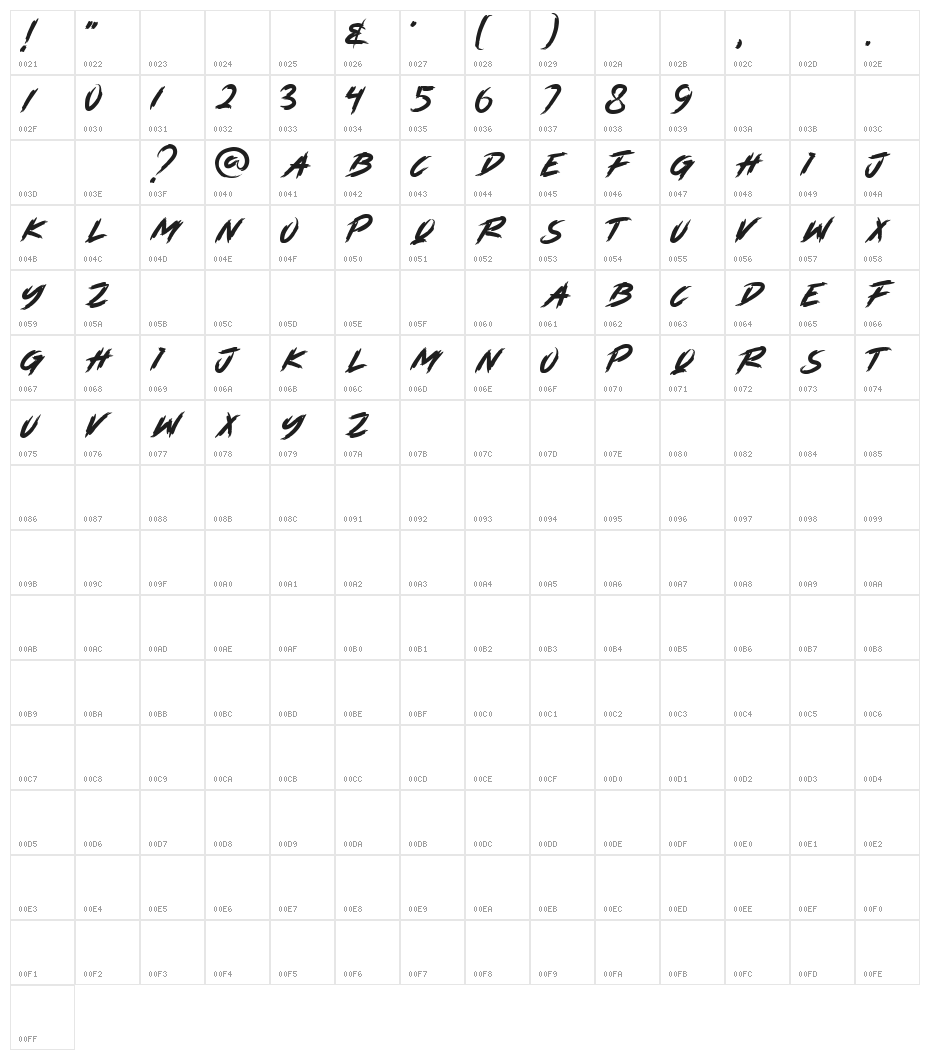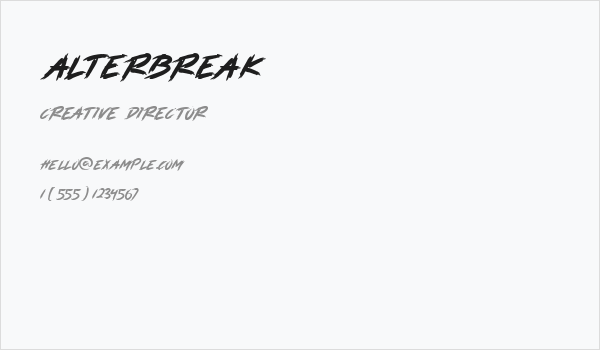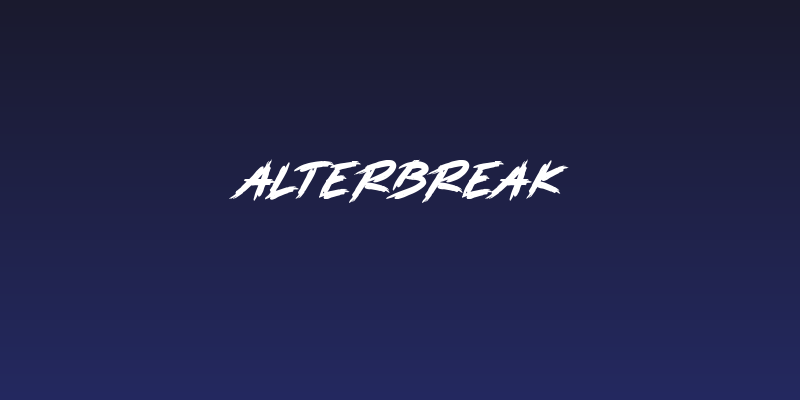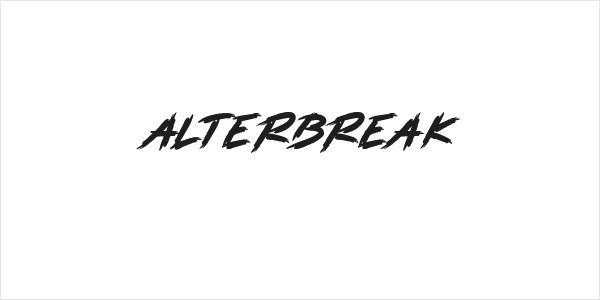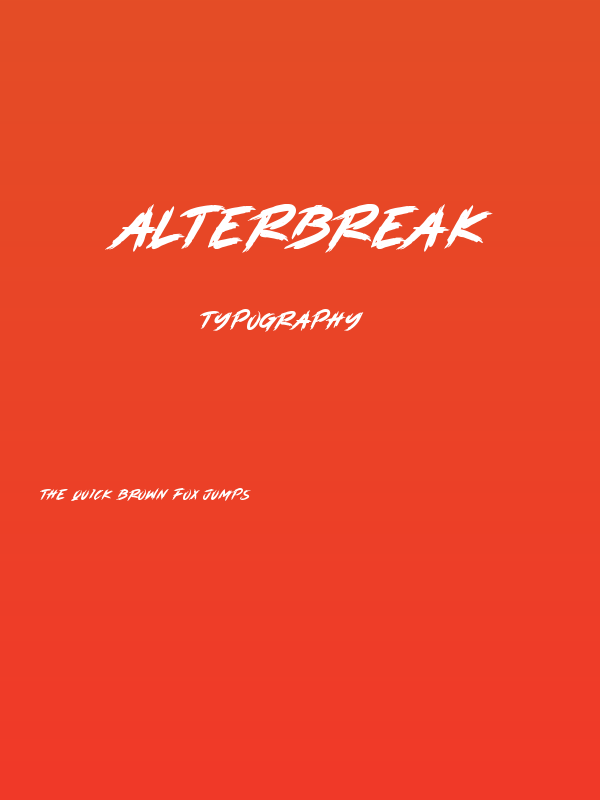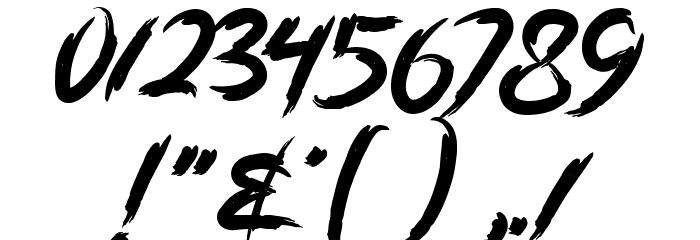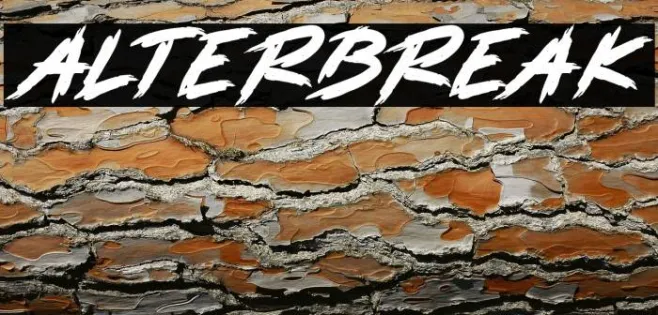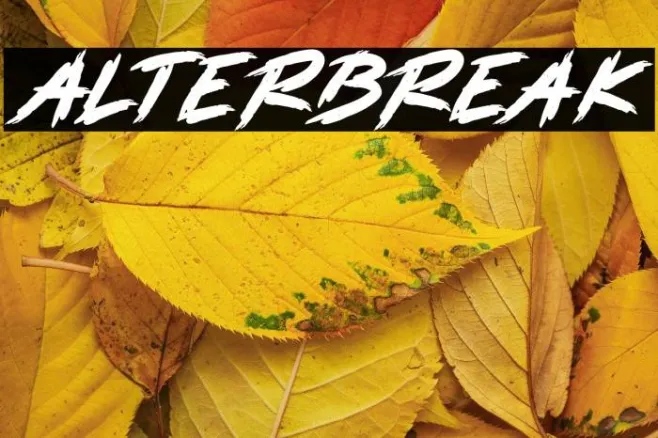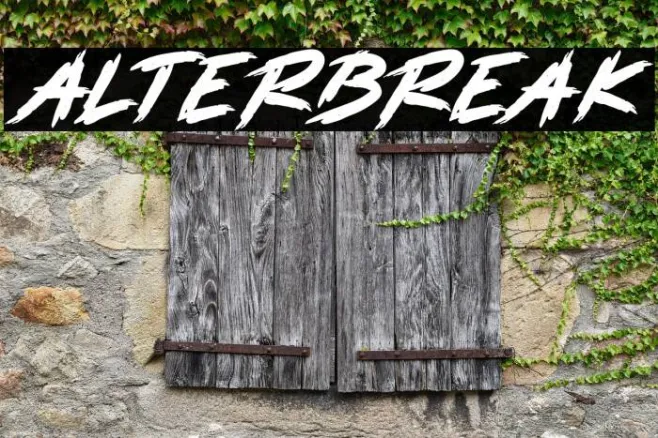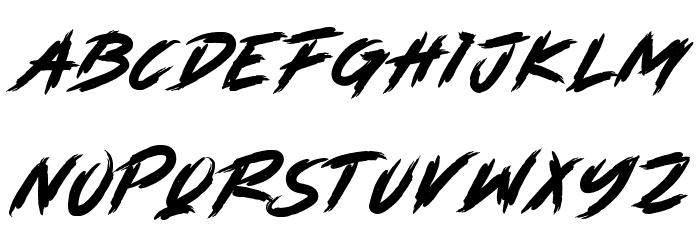
ALTERBREAK Font
ALTERBREAK Description
This font features a bold and dynamic brush script style, characterized by its energetic and expressive strokes. The letters have a hand-painted appearance, with varying thickness that adds a sense of movement and fluidity. The uppercase and lowercase letters maintain a consistent style, with sharp angles and a slightly slanted orientation, giving the text a forward momentum. The numerals and special characters follow the same aesthetic, ensuring a cohesive look across all elements. This font is ideal for projects that require a strong visual impact and a touch of artistic flair.